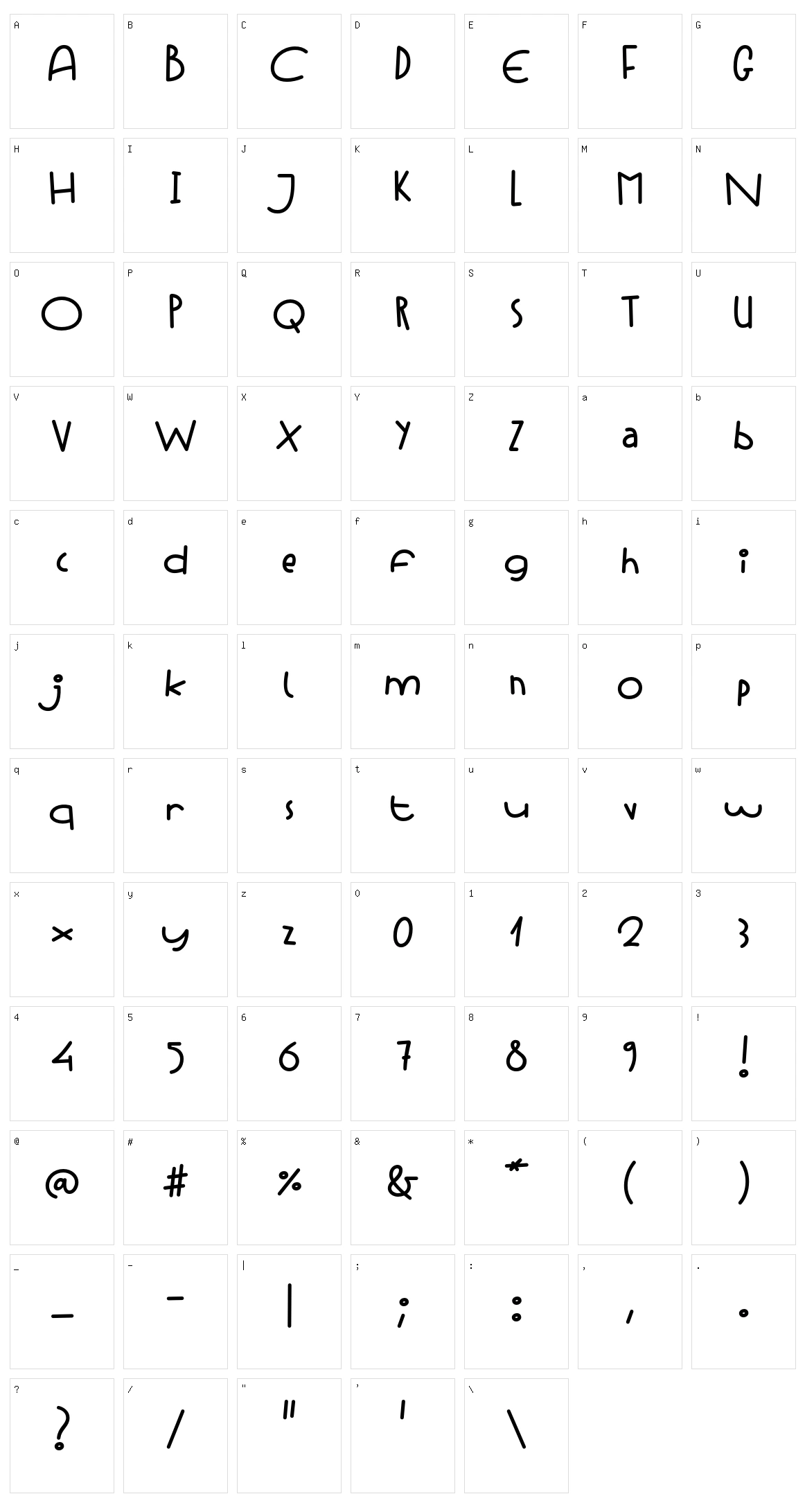
S t r a w b e r r y C o c k t a i l i s a s t i c k s t y l e s t r a i g h t h a n d d r a w n s a n s s e r i f . Y o u c a n c r e a t e n i c e h a n d m a d e t y p o g r a p h y w i t h i t e i t h e r a l o n e o r c o m b i n i n g i t w i t h o t h e r s c r i p t s f o r t h e b e s t r e s u l t d e p e n d i n g o n y o u r p r o j e c t , w h e t h e r i t b e
* l o g o s ,
* p r i n t e d q u o t e s ,
* i n v i t a t i o n s ,
* c a r d s ,
* I n s t a g r a m p o s t s .